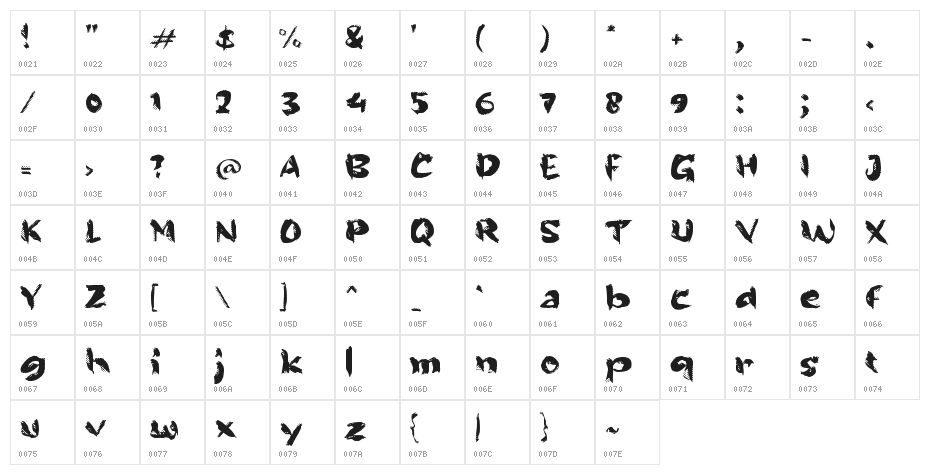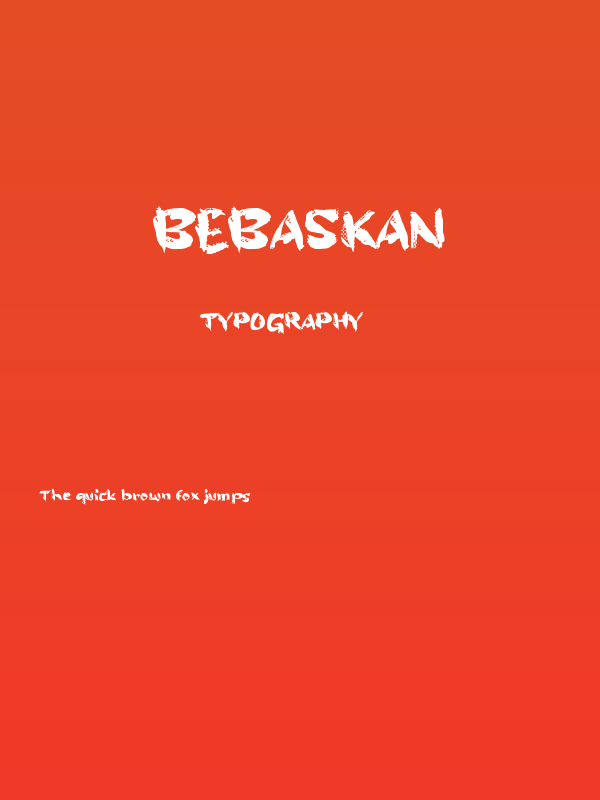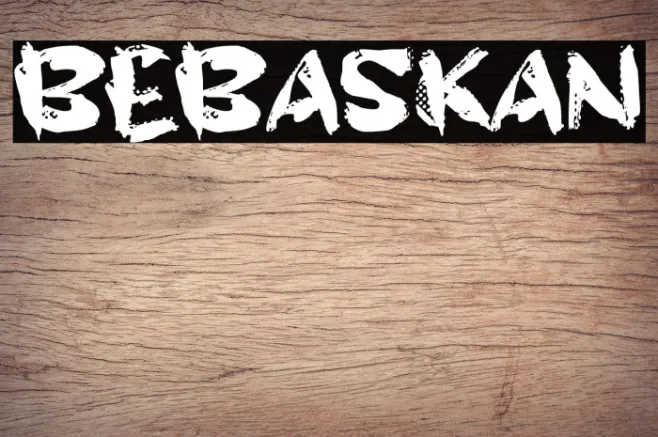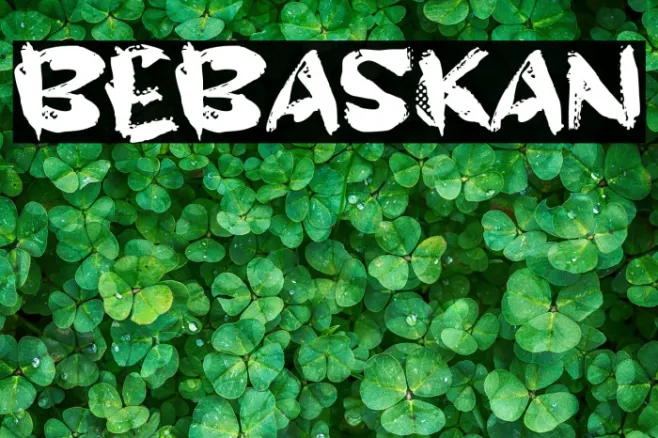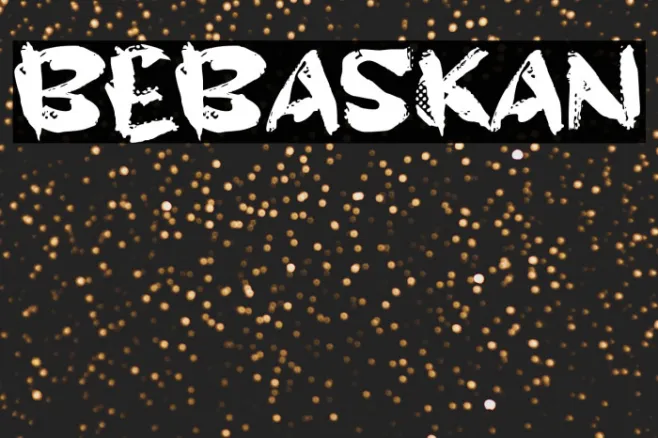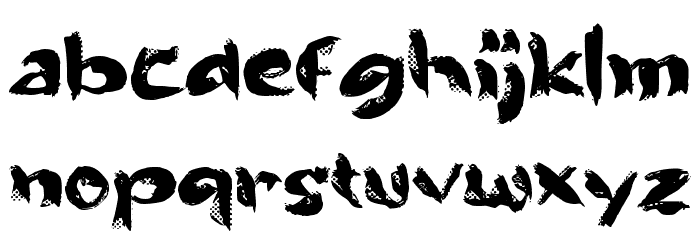
BEBASKAN Font
BEBASKAN Description
This font exhibits a bold, dynamic style with a distressed, grunge-like texture. The characters are crafted with a brush-like effect, giving them an energetic and raw appearance. The uppercase and lowercase letters maintain a consistent style, with sharp edges and irregular strokes that add to the font's edgy aesthetic. Numbers and special characters follow the same design principles, ensuring a cohesive look across all glyphs. The font's unique texture and bold presence make it stand out, ideal for projects that require a strong visual impact.
| Proposed Projects | Ideal for posters, album covers, streetwear branding, and any project needing a bold, edgy look. |